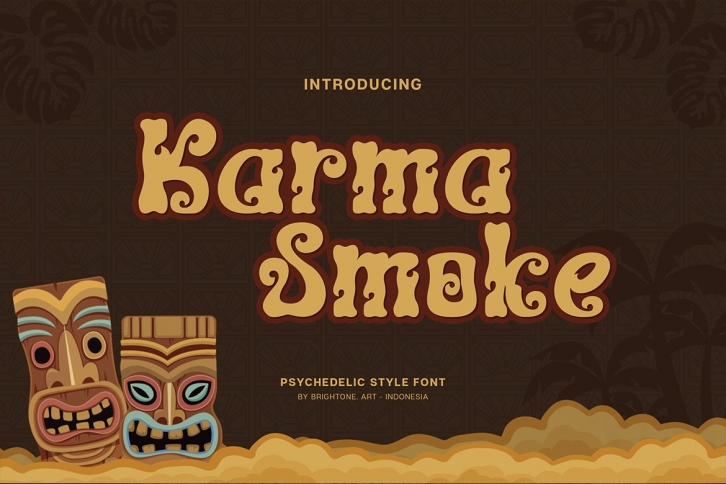
Karma Smoke is a great font that was designed by brightone art. Imagine the amount of combinations you can create using this font! The archive is 15.44 MB and it was released on June 29, 2022. Karma Smoke looks beautiful on wedding invitations, greeting cards, logos, posters, labels, t-shirt designs, logos, business cards and is perfect for use in ink or watercolor works, fashion, magazines, packaging and food menus, children's books and more!